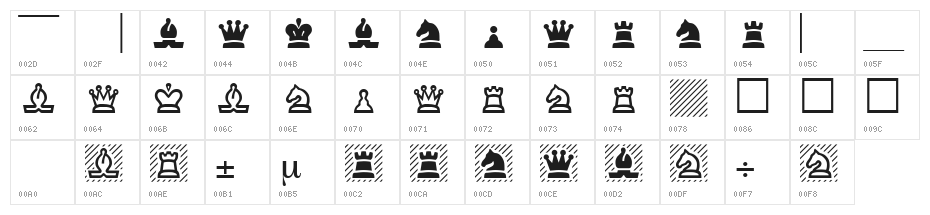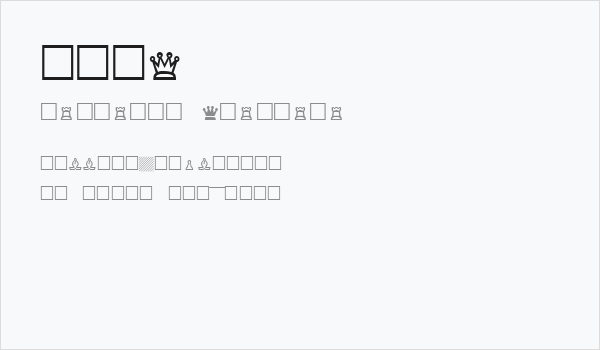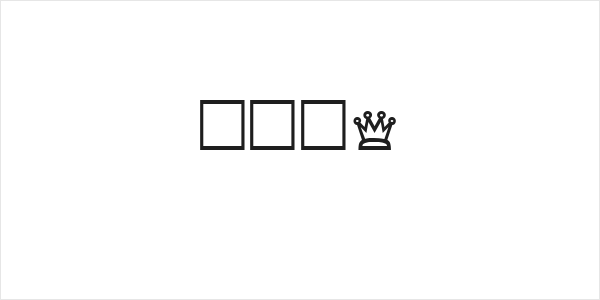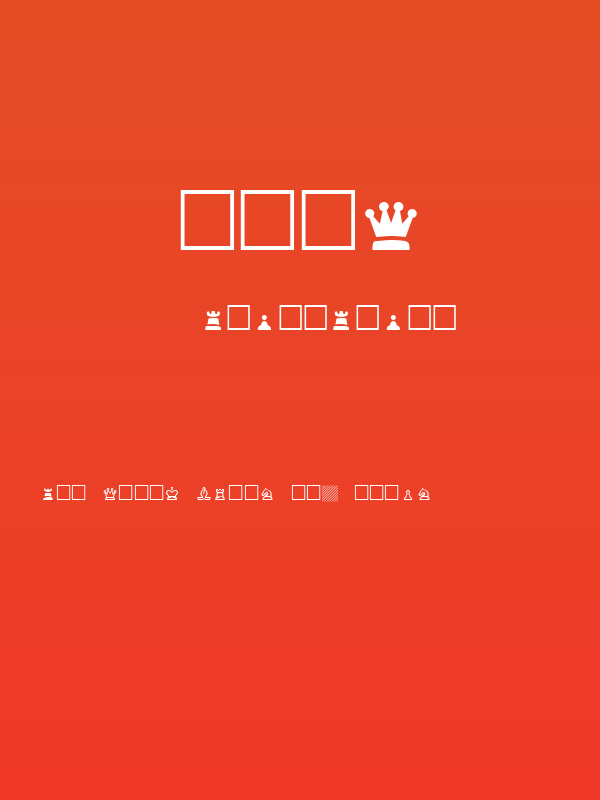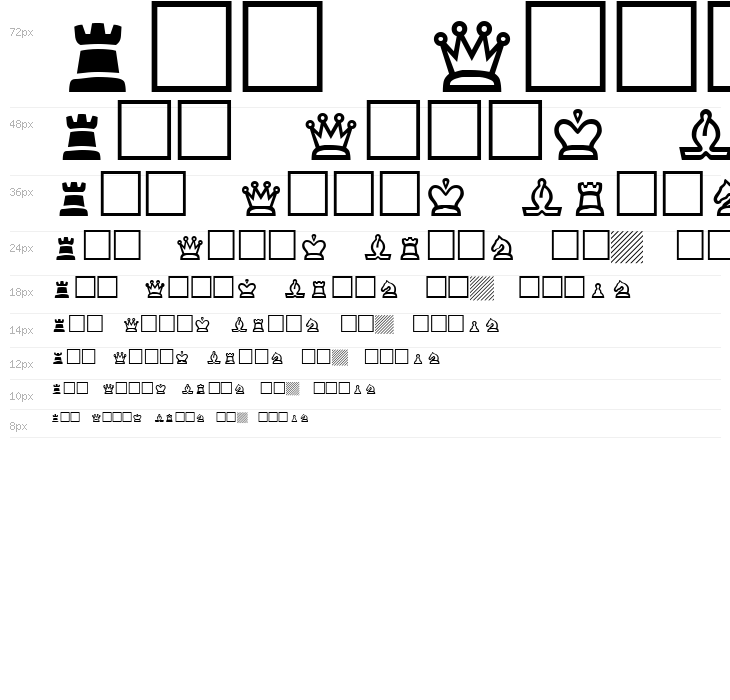
Cheq Font
Cheq Description
This is a decorative font that uses chess piece icons and outlined squares to represent characters. The icons are bold and stylized, with clear, recognizable chess motifs such as bishops, queens, knights, pawns, and rooks. The outlined squares serve as placeholders for other characters, creating a playful and thematic appearance.
| Overall Style | Decorative, Thematic |
| Use Case | Logos, Posters, Themed Graphics |
| Proposed Projects | Board game designs, chess club posters, educational materials, themed invitations. |